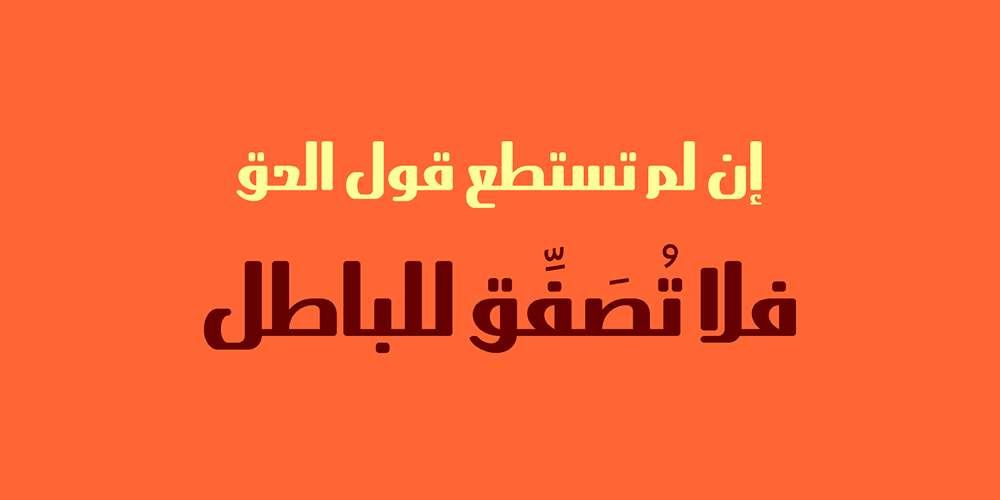
Abdo Egypt
Abdo Egypt font
Abdo Egypt Font Family was designed by Abdulsamiea Rajab Salem and published by Abdo Fonts. Abdo Egypt contains 1 styles and family package options. Abdo Egypt is a geometrical style. This is an OpenType Font supporting Arabic, Persian and Urdu and is compatible with the various operation systems and modern software. The combination of modern Kufi and Geometrical styles and the variation between straight and curved parts made it a beautiful typeface appropriate to titles and text and able to meet the desire of the user in the design of ads and modern designs of various types of audio and visual.